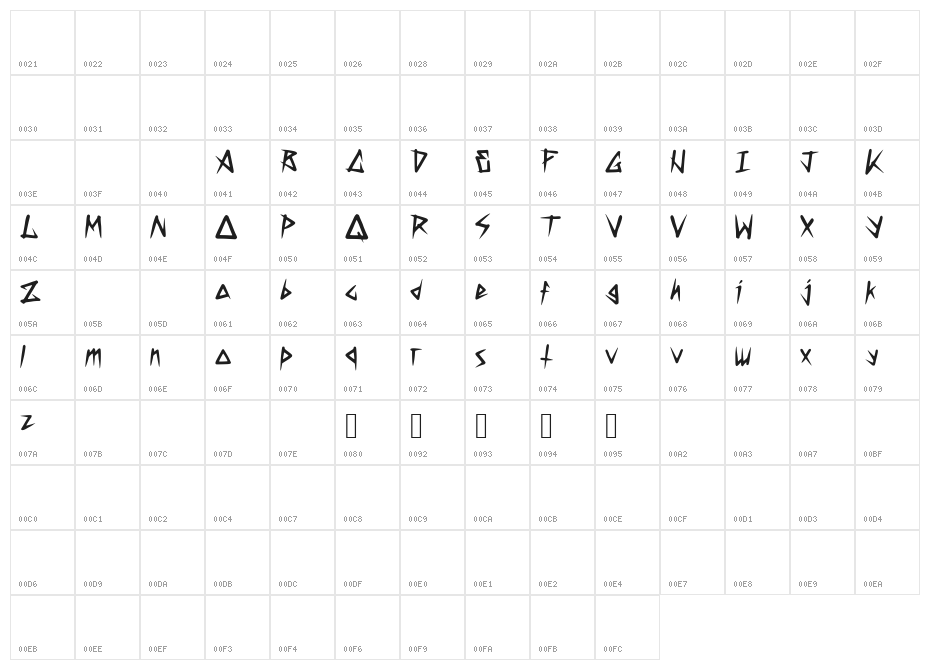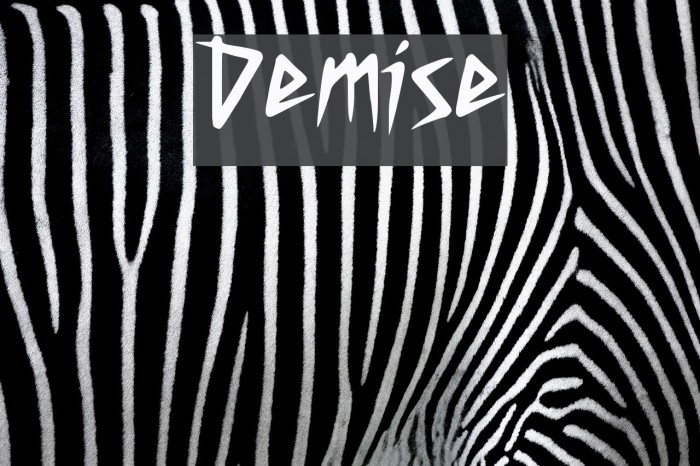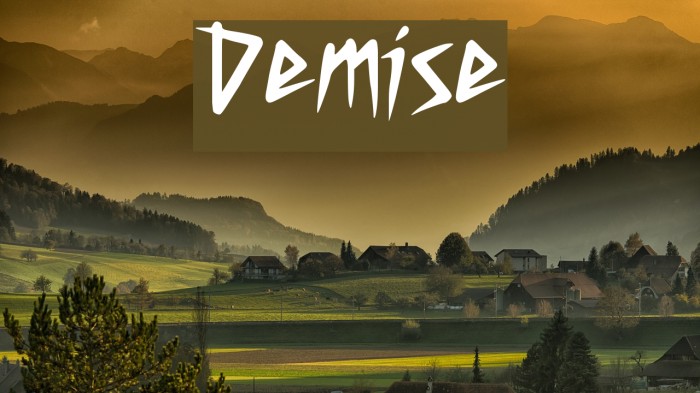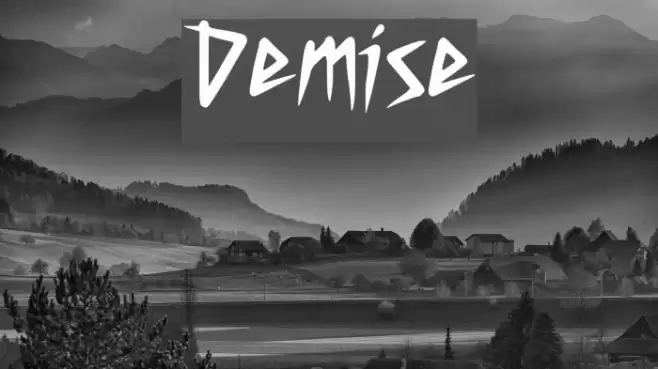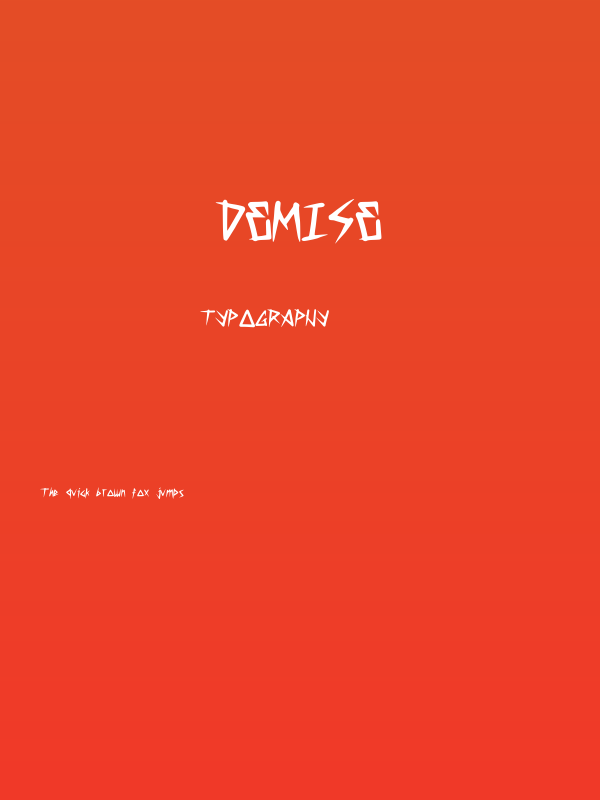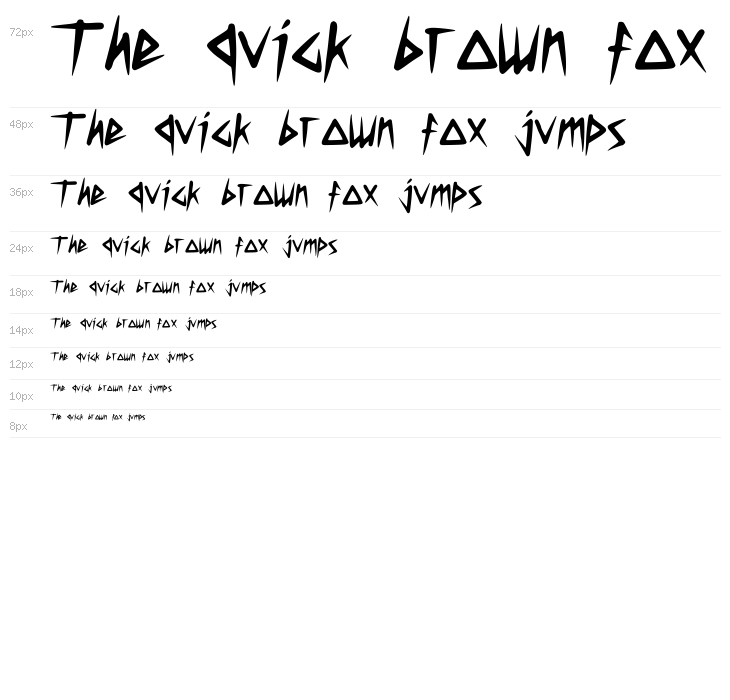
Demise Font
Demise Description
This font features a bold, angular design with sharp, pointed edges that give it a dynamic and aggressive appearance. The characters are highly stylized, with exaggerated angles and a sense of movement, making it stand out as a display font. The uppercase and lowercase letters maintain a consistent style, with a slightly condensed form that enhances its edgy look. The numerals and special characters follow the same design principles, ensuring uniformity across all glyphs. This font is ideal for projects that require a strong visual impact, such as posters, album covers, or branding for edgy or alternative products.
Overall StyleModern, Edgy
Proposed ProjectsIdeal for posters, album covers, branding for edgy products, and any project needing a strong visual impact.